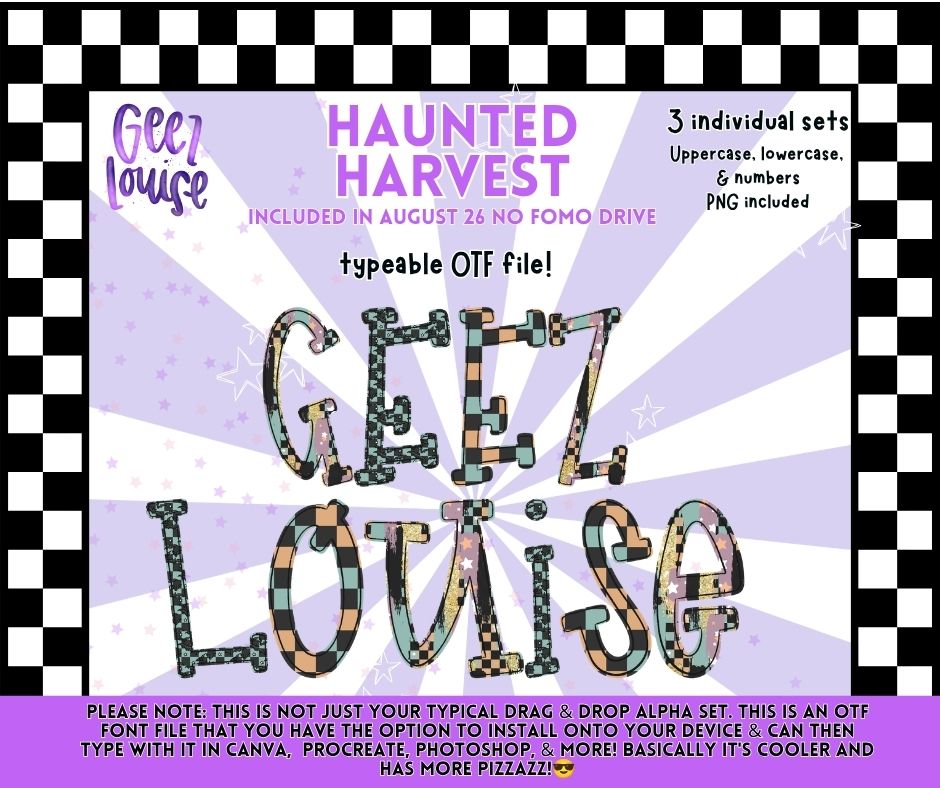
Haunted Harvest OTF Font & PNG Alpha Bundle | Halloween Font | Uppercase, Lowercase & Numbers | August '26 No FOMO Drive
Create spooky fall projects with Haunted Harvest, a Halloween OTF font that also includes matching PNG alpha files.